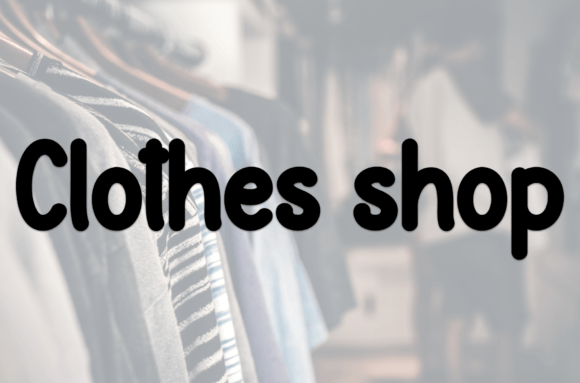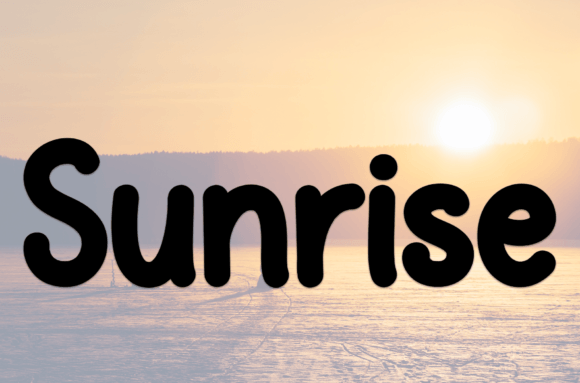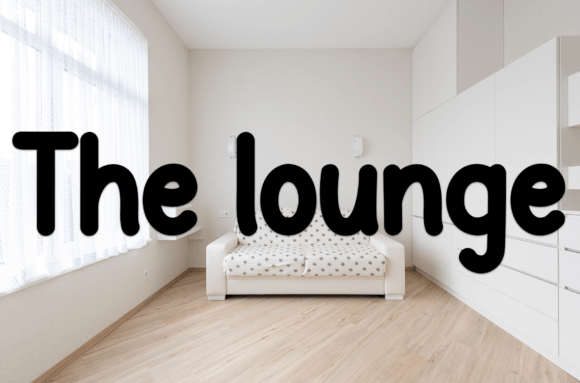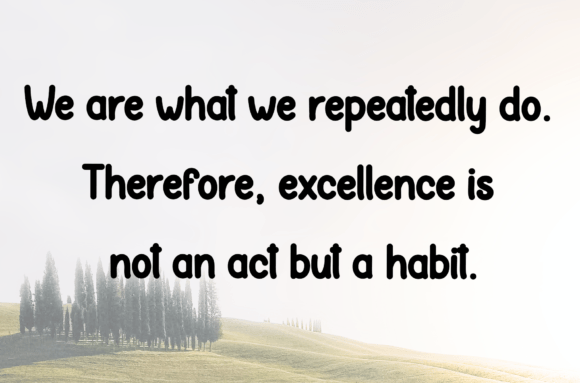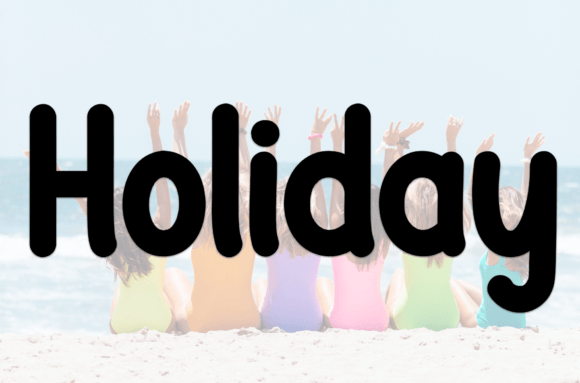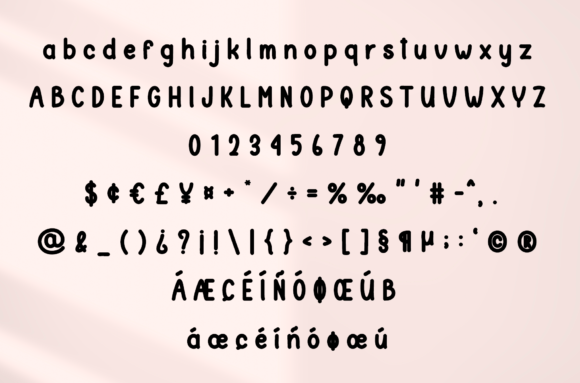
Little Book Font
What Is Little Book Font?
Little Book Font is a sweet, friendly handwritten script designed to bring warmth and personality to your creative projects. Its smooth curves and balanced shapes feel casual yet polished, making every design feel approachable and genuine. This font blends modern simplicity with a touch of playfulness that works beautifully across many styles.
Each letter has been carefully crafted to create a clean, consistent look that feels handcrafted without being messy.
Little Book Font is versatile and adapts to a wide range of applications. For example, it looks charming on wedding invitations, save-the-date cards, and thank-you notes. The handwritten style adds a romantic, personal feel that guests will remember.
Greeting cards for birthdays, holidays, and special occasions also benefit from Little Book Font’s cute, inviting character. The smooth letters make every message feel sincere and warm.
This font is also a great choice for logos and branding materials. Small businesses, boutiques, and creative studios often use handwritten scripts to show authenticity and approachability. Little Book Font helps you build a brand that feels unique and memorable.
If you create social media graphics, Little Book Font can make your posts stand out. Quotes, promotions, and announcements gain a friendly, cohesive look that helps your audience connect with your content.
Additionally, Little Book Font works beautifully on product packaging and labels. From handmade gifts to artisanal foods, this font adds a handcrafted touch that feels special.
Why Should You Choose Little Book Font?
One of the best reasons to use Little Book Font is its readability. Even though it has a playful style, each letter stays clear and legible at any size, from small labels to large banners.
Another advantage is how easily it pairs with other fonts. You can combine it with clean serif or sans-serif typefaces to balance the decorative script while keeping designs professional and easy to read.
Designers love that Little Book Font saves time while delivering polished results. Every glyph is designed to look refined right out of the box, so your projects feel complete without extra adjustments.
Little Book Font adds warmth and charm to any project. Its smooth, flowing letters help your work feel genuine and thoughtful. This personal touch helps build trust and makes your designs more memorable.
Even simple layouts feel lively and engaging when you use a friendly handwritten script. Choosing a high-quality font like Little Book shows that you value detail and creativity, which clients and customers will appreciate.
The balance between playful style and clean structure ensures that your work stays professional while feeling fresh and inviting.
Little Book Font is more than a sweet handwritten script—it’s a creative tool that helps you share your ideas with personality and style. From wedding invitations to social media graphics and product packaging, this font adapts to many uses and always makes a positive impact.